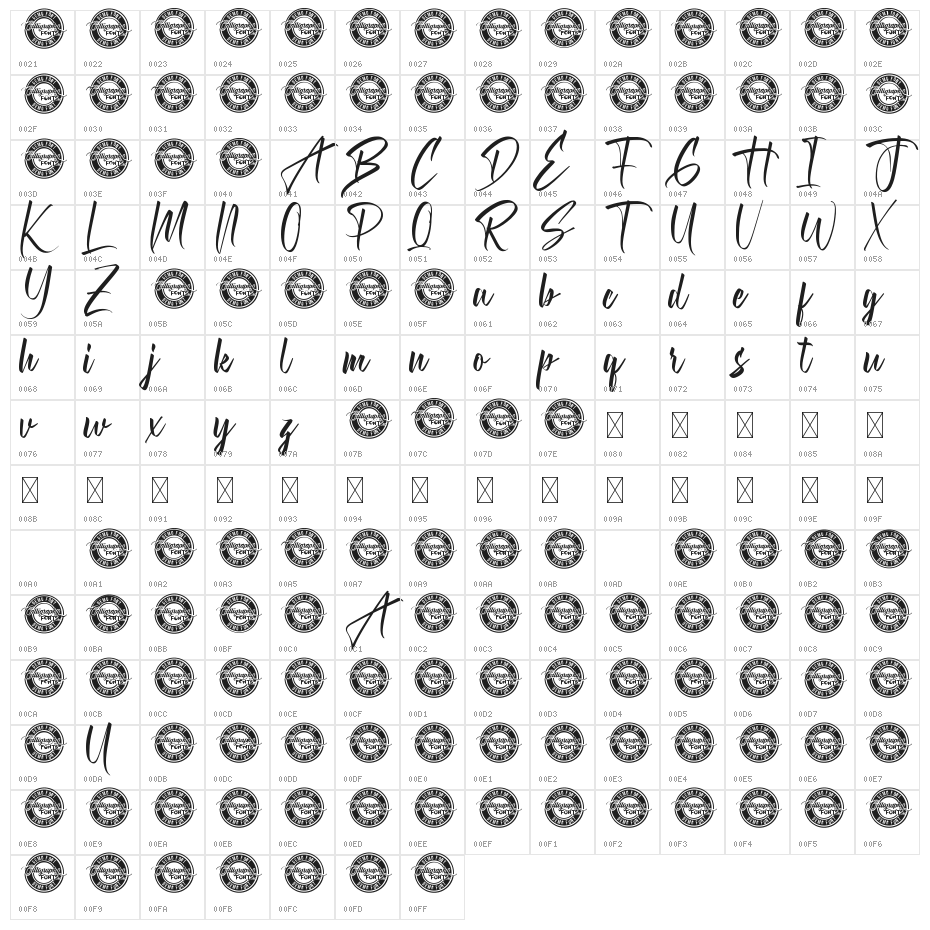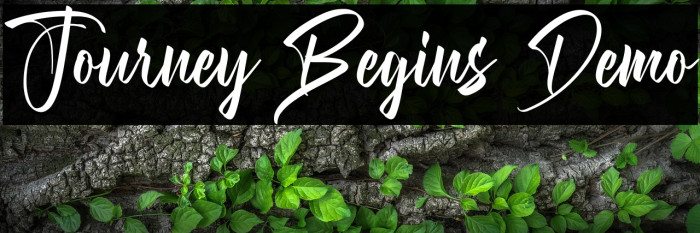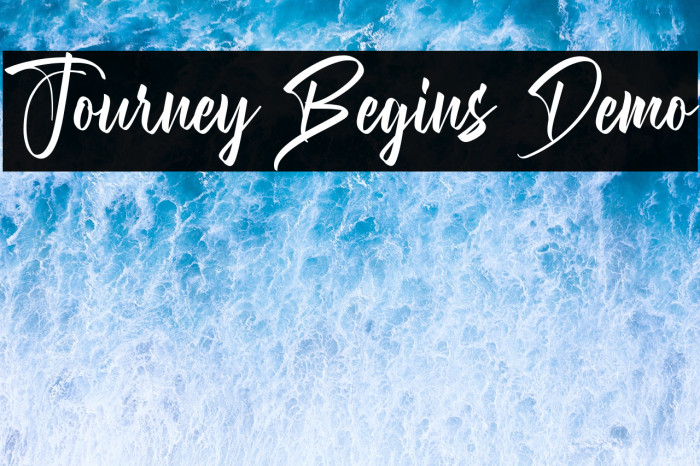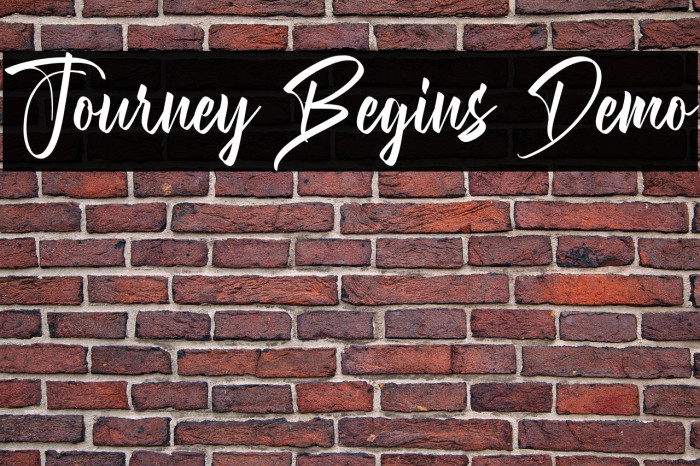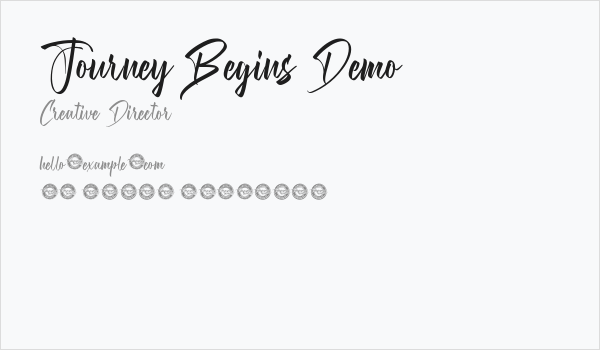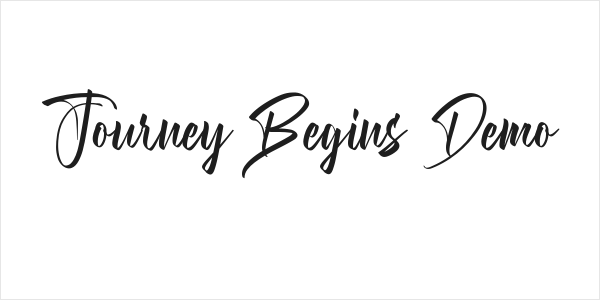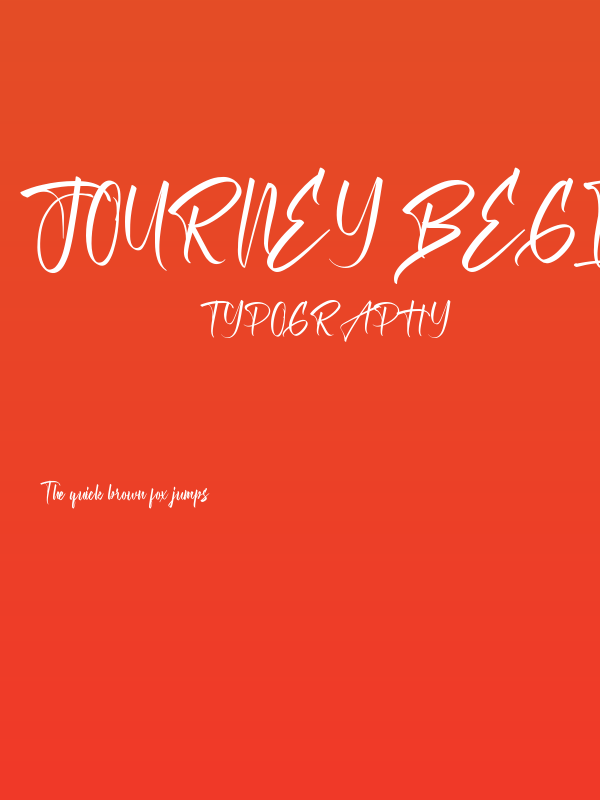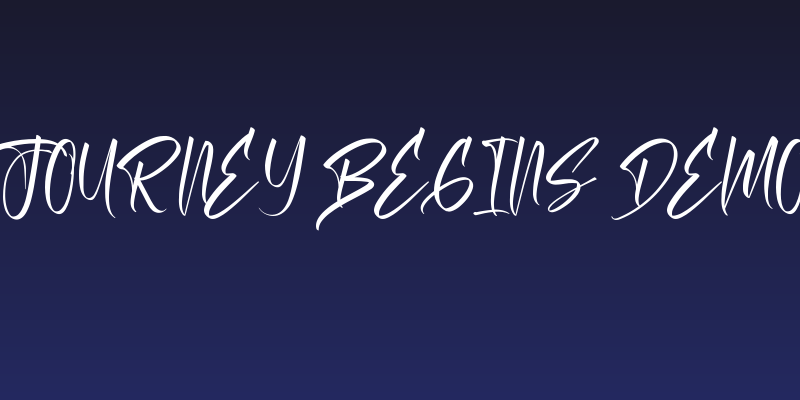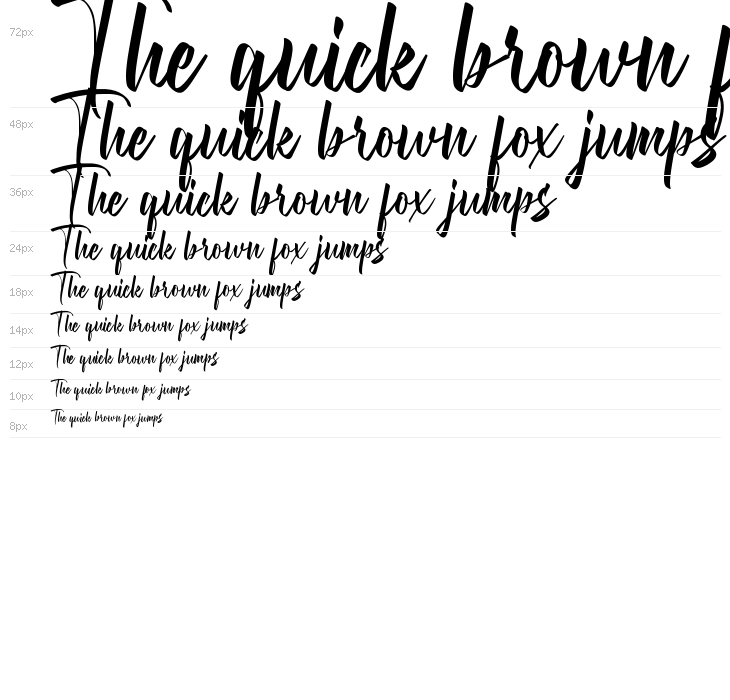
Journey Begins Demo Font
Journey Begins Demo Description
This font features a dynamic and flowing script style, characterized by its elegant and cursive letterforms. The uppercase letters exhibit a graceful, sweeping motion, while the lowercase letters maintain a consistent fluidity, enhancing the overall aesthetic appeal. The font's design is reminiscent of traditional calligraphy, with a modern twist that makes it suitable for contemporary applications. The strokes vary in thickness, adding a sense of movement and energy to the text. This font is ideal for projects that require a personal touch, such as invitations, greeting cards, and branding materials.
Proposed ProjectsIdeal for wedding invitations, greeting cards, branding, and logo design.